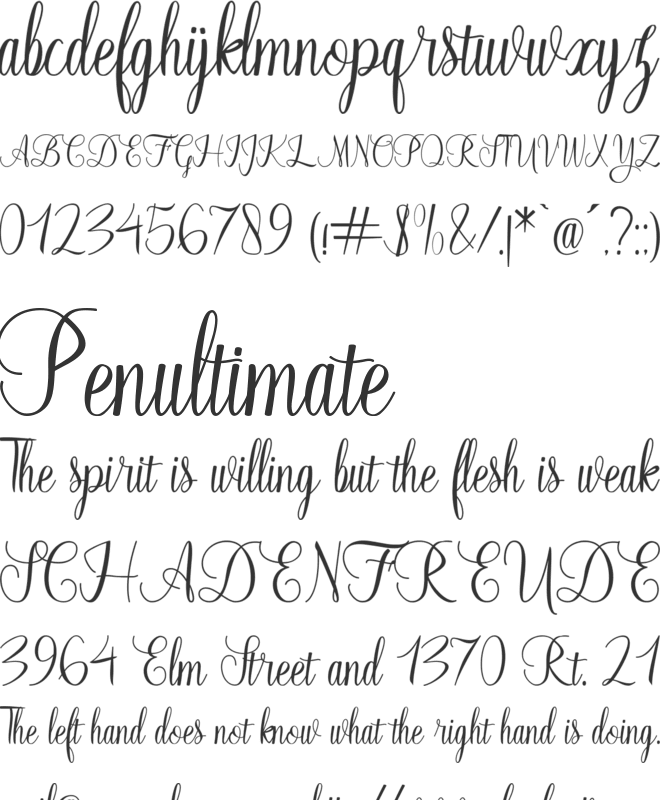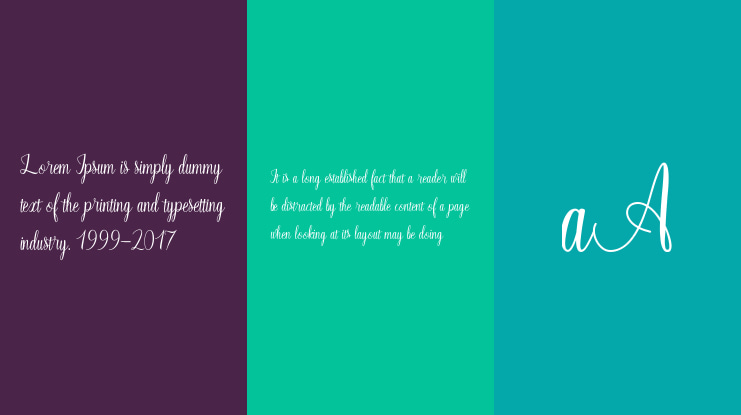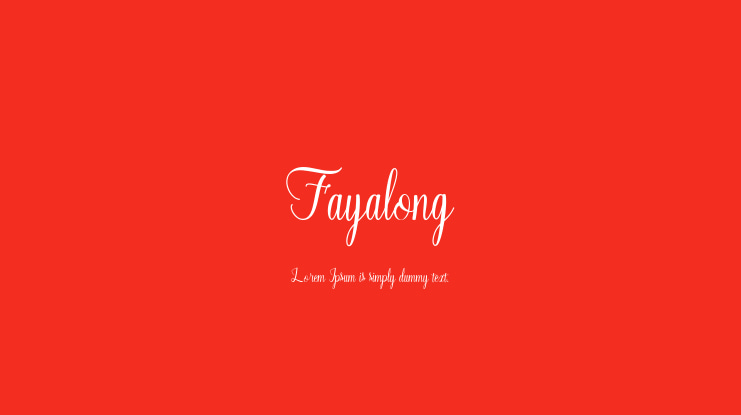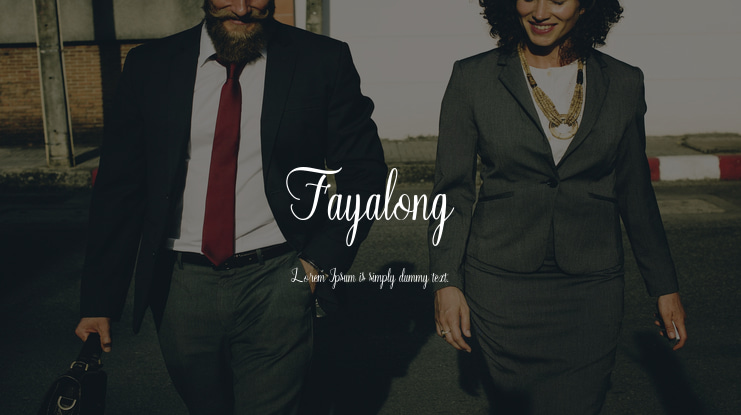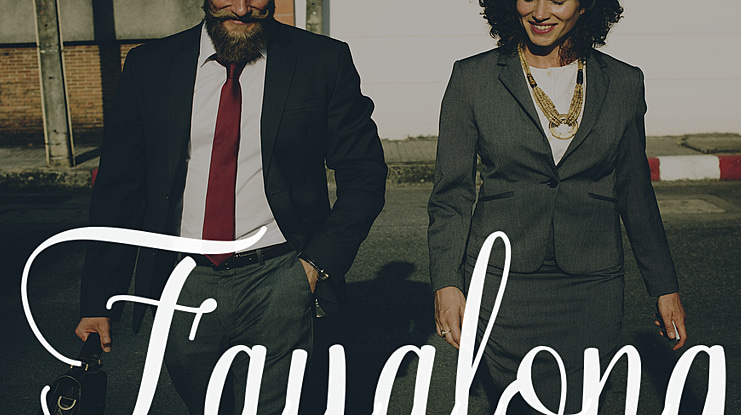
Fayalong Font
Muhammad Muzammil
INTRODUCING Fayalong is the font style handmade dancing up to 504 glyph and then live trace to have unique forms of calligraphy, the writing style is very natural.The Features of this fonts is;
Standart ligatures
Stylistic Alternates
Stylistic sets
Swash
PUA Unicode (Private Use Areas)